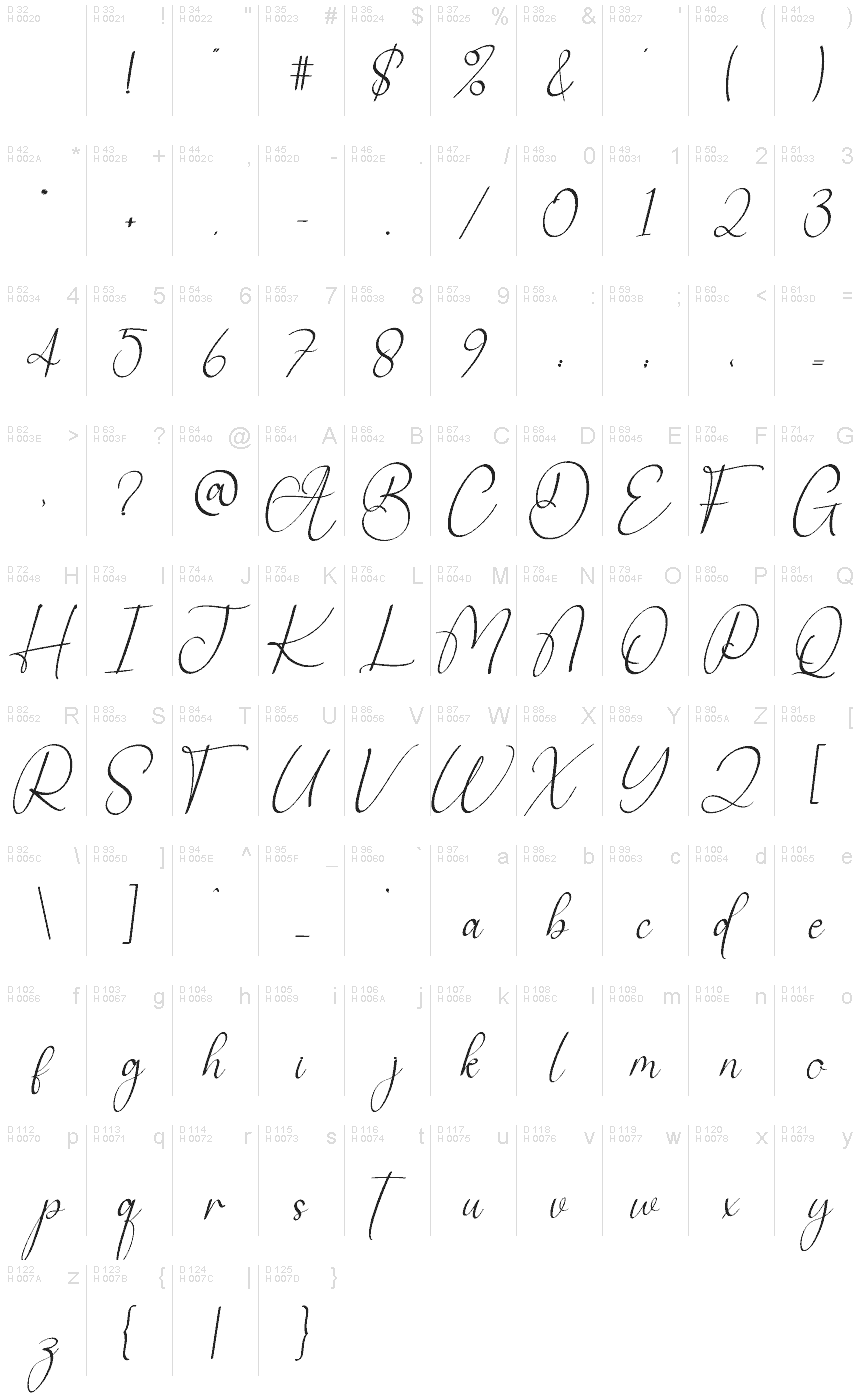
Ainsley Signature
Ainsley Signature font is a free handwritten font by Scratchones with light and delicate transparent strokes. Its minimal aspect perfectly balances with its irregular holdings and fluid finished touches for a truly graceful appearance. This mono-weighted typeface flows naturally while it presents the elegance missing in many others, helping readers understand your message completely.
Taking advantage of this font’s visual sophistication can do wonders for logos, branding presentations, merch packages, social media content, quotes, apparel designs, invitations etc. Furthermore: product labels, flyer presentations which need some legibility from afar but aesthetic appeal from close go as well! Use for any personal or business idea whenever possible!